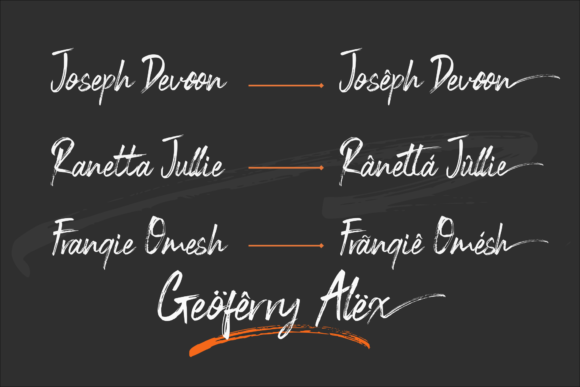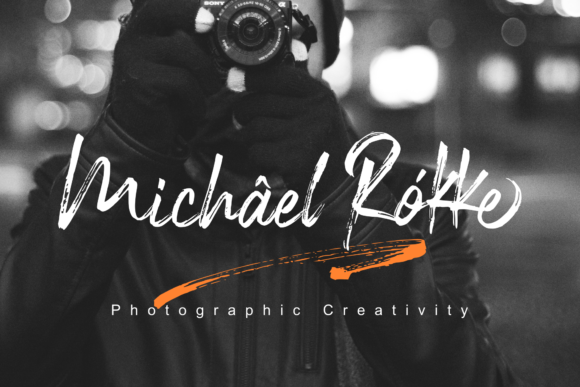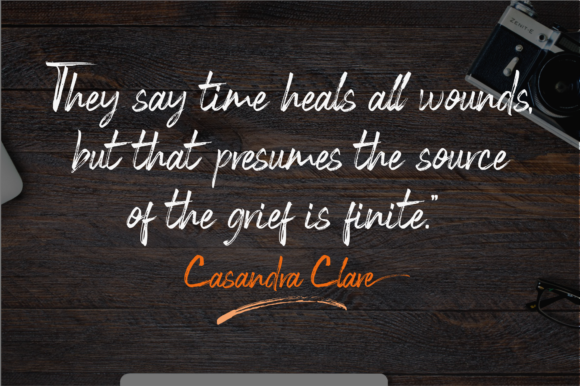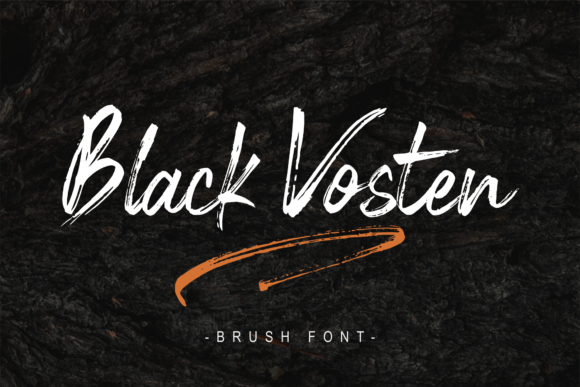
Introduction to Black Vosten Font
Black Vosten is a dark, yet fun handwritten font with a bold feel.
Get inspired by its unique charm, and turn any design project into a true standout .
Key Features of Black Vosten Font
Why Choose Black Vosten Font?
Black Vosten Font offers exceptional quality and versatility, making it a valuable addition to your design toolkit. Whether you’re creating for personal projects or commercial use, Black Vosten Font delivers professional results.